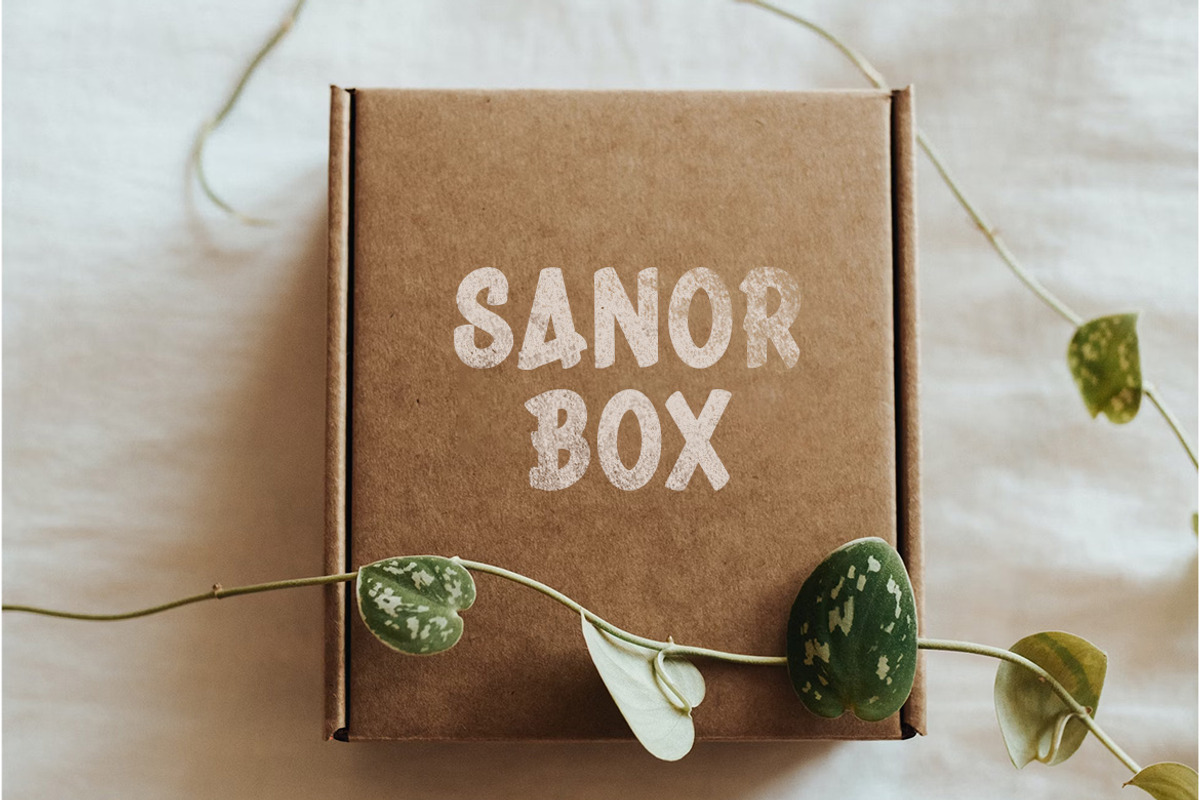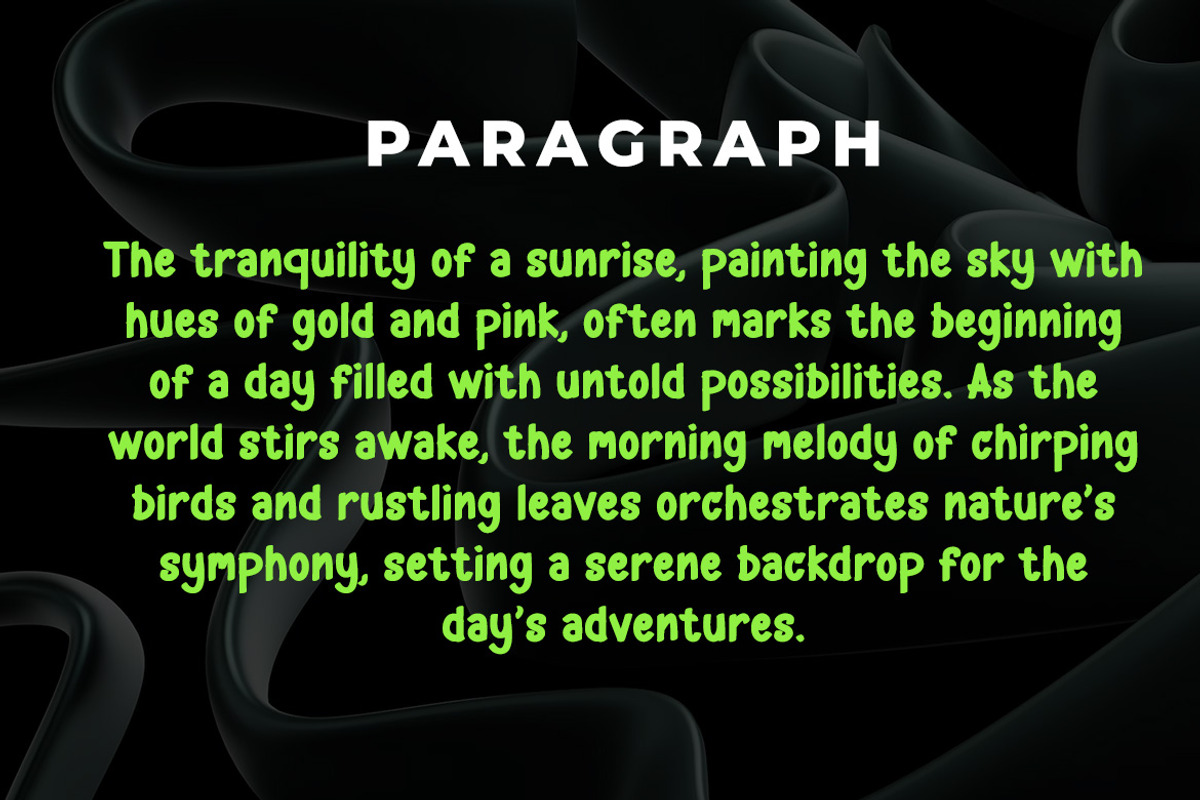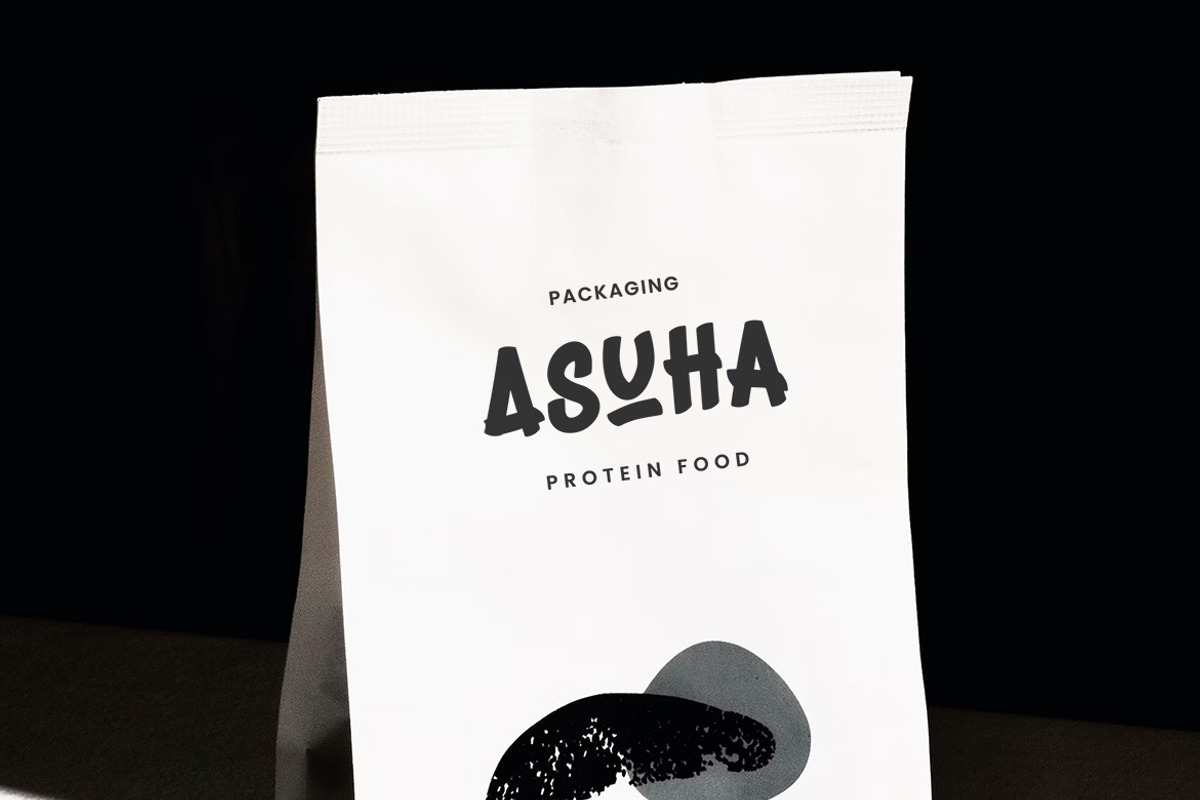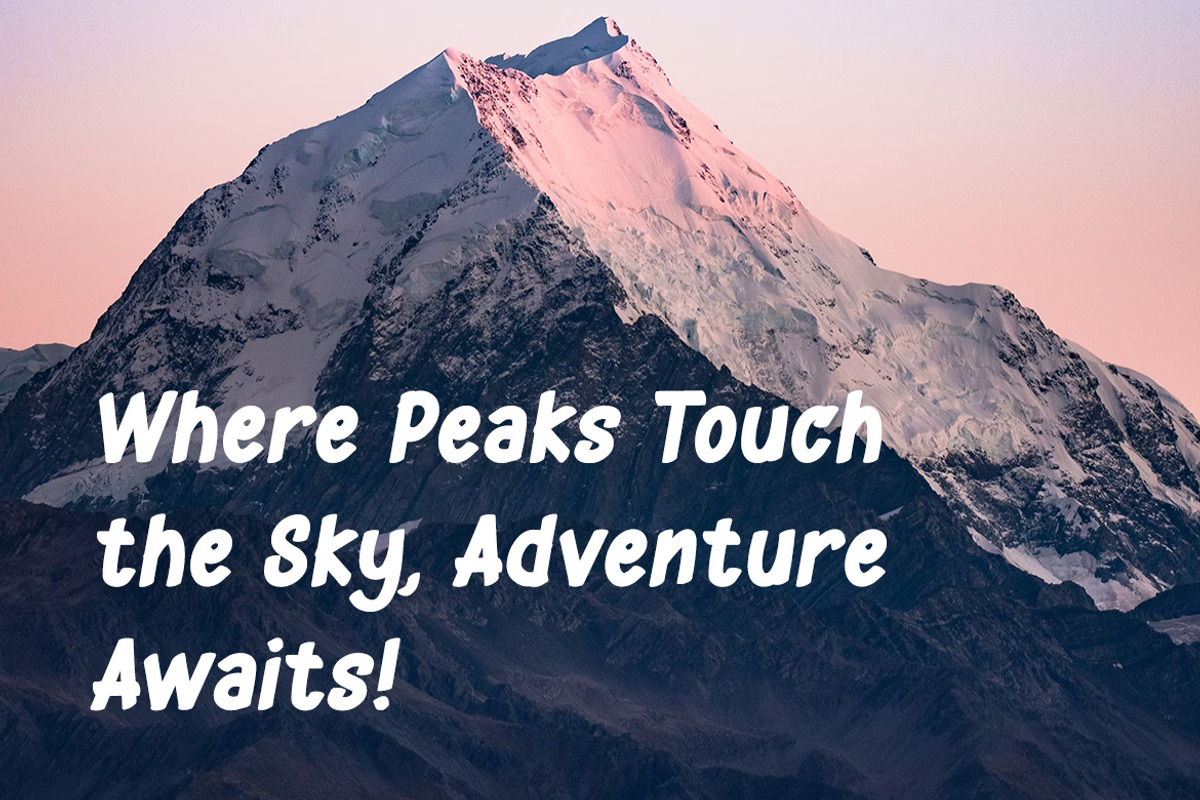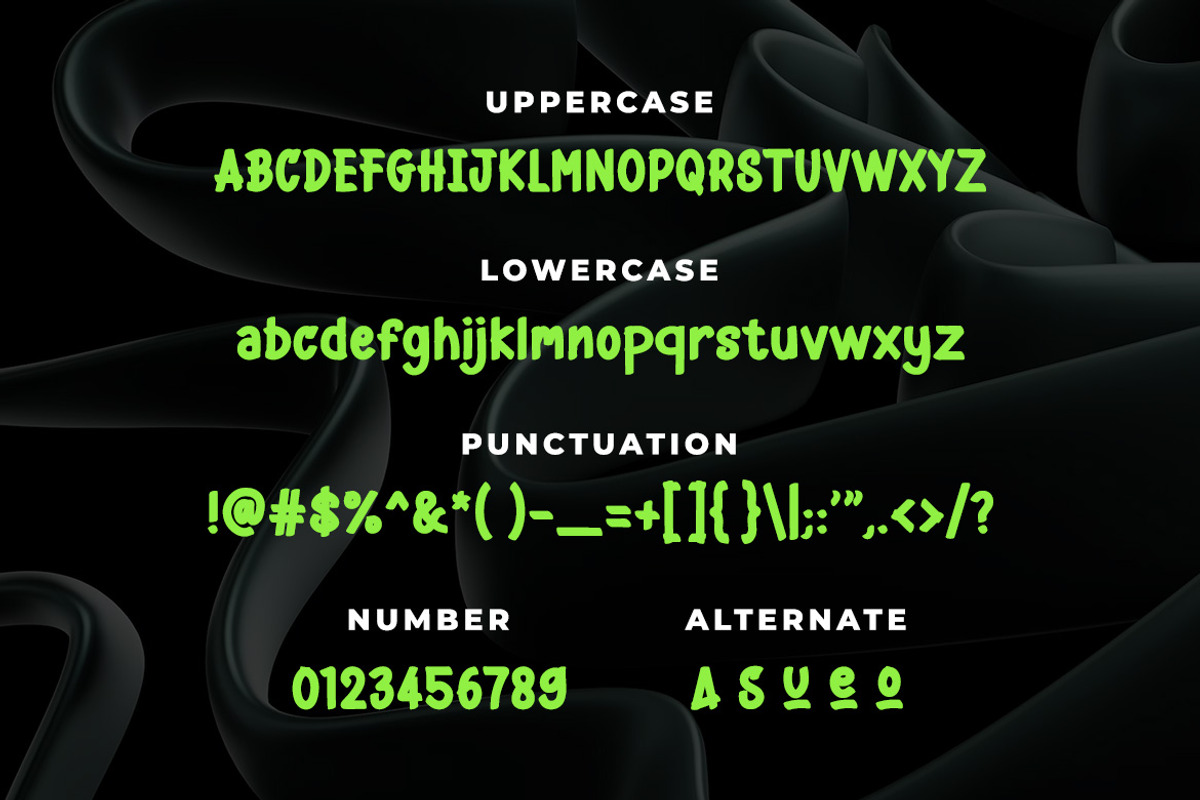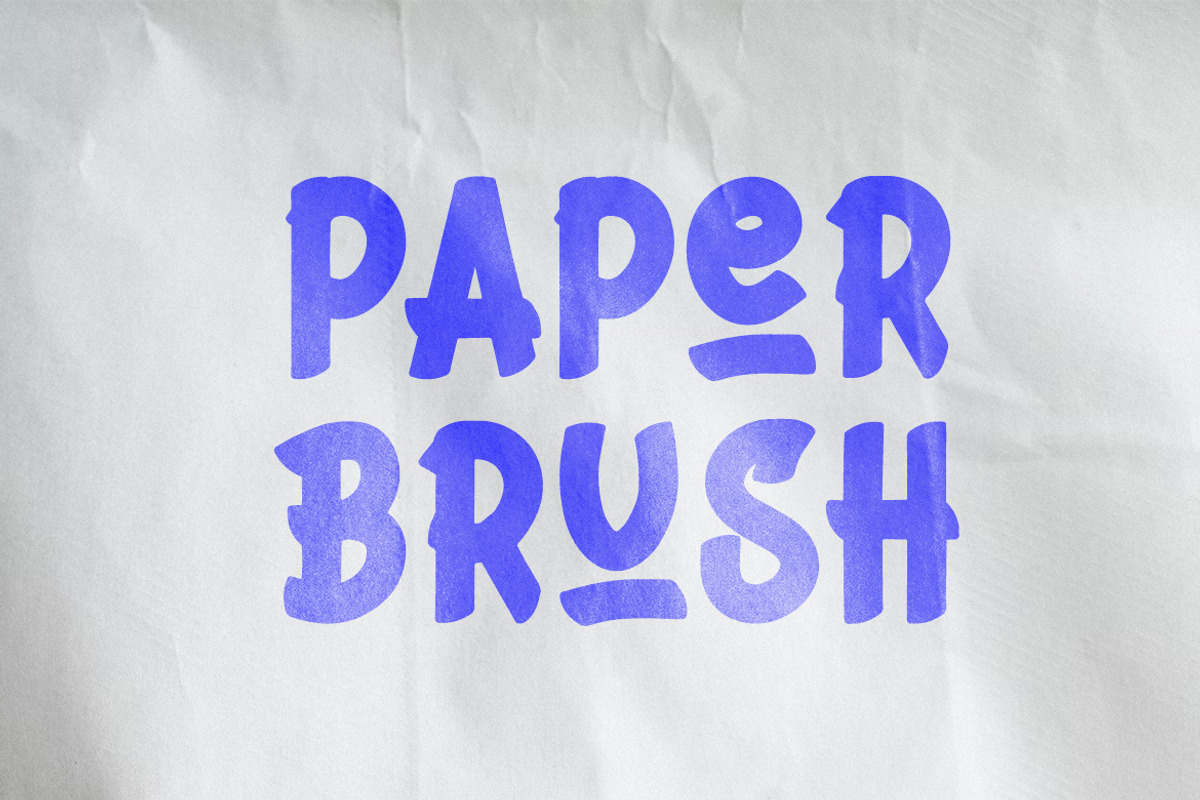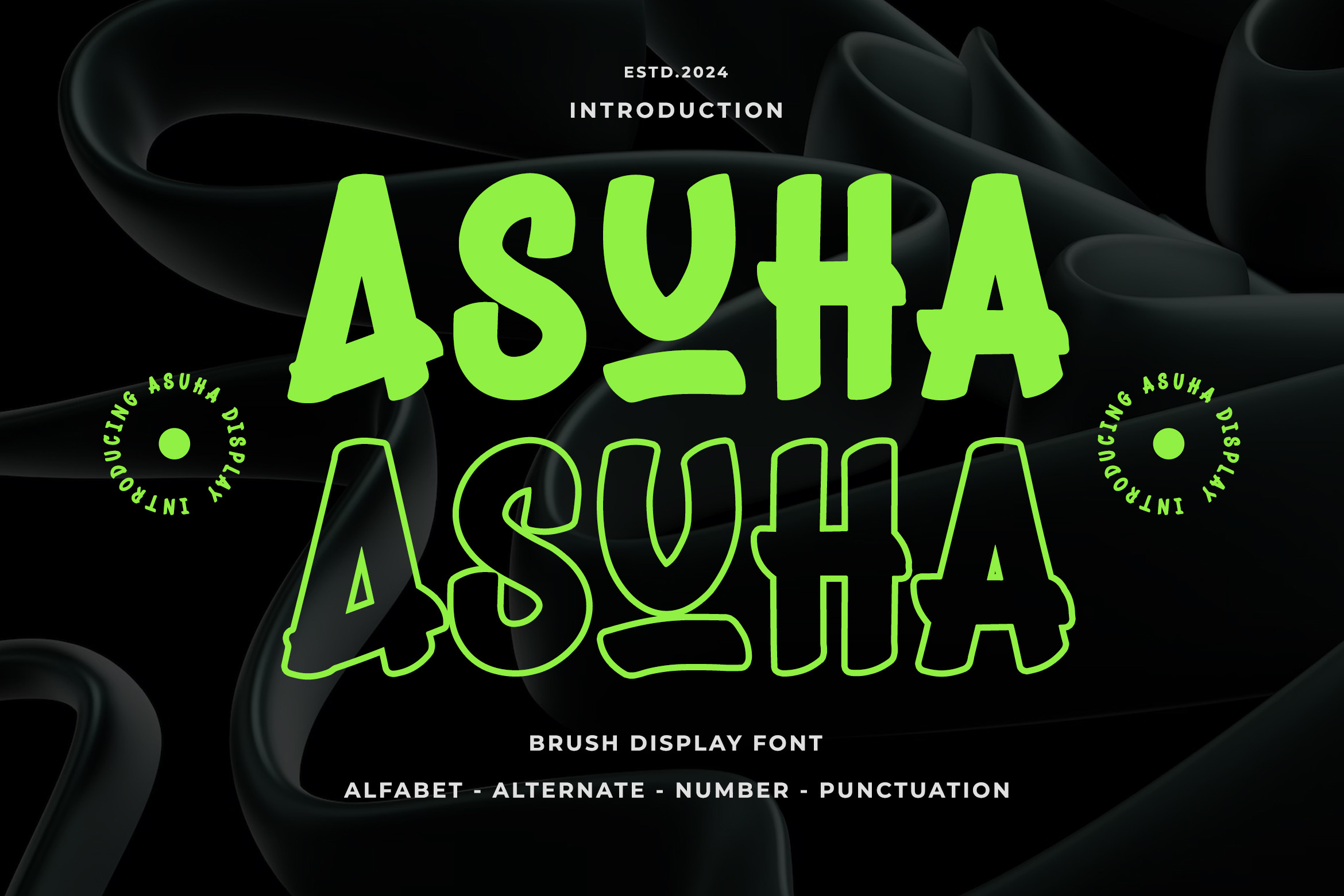
ASUHA - Brush Display Font
ASUHA is a unique display typeface perfect for titles, large text, branding, logotypes & graphic design purposes such as posters, pamphlets, and advertisements. This letter font can be a great choice for creating amazing logos, promotional content, and marketing presentations that can bring uniqueness and freshness at its best.
Alternate